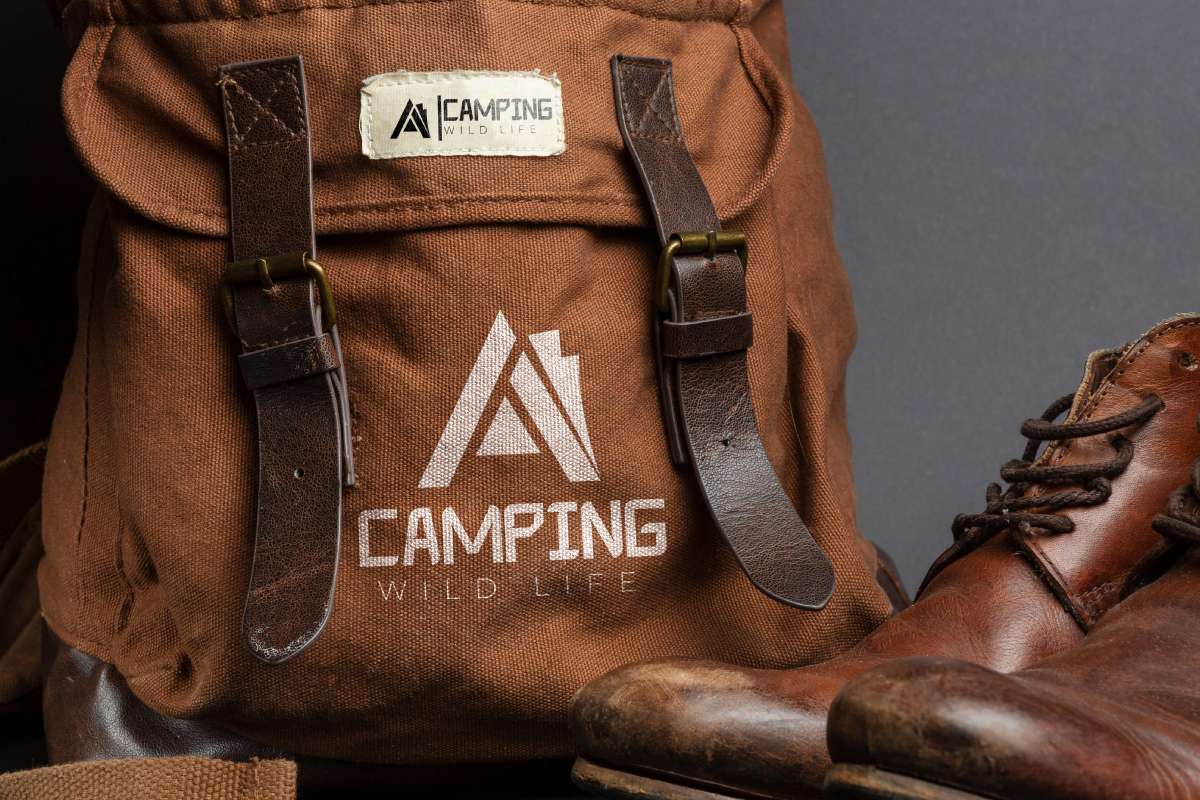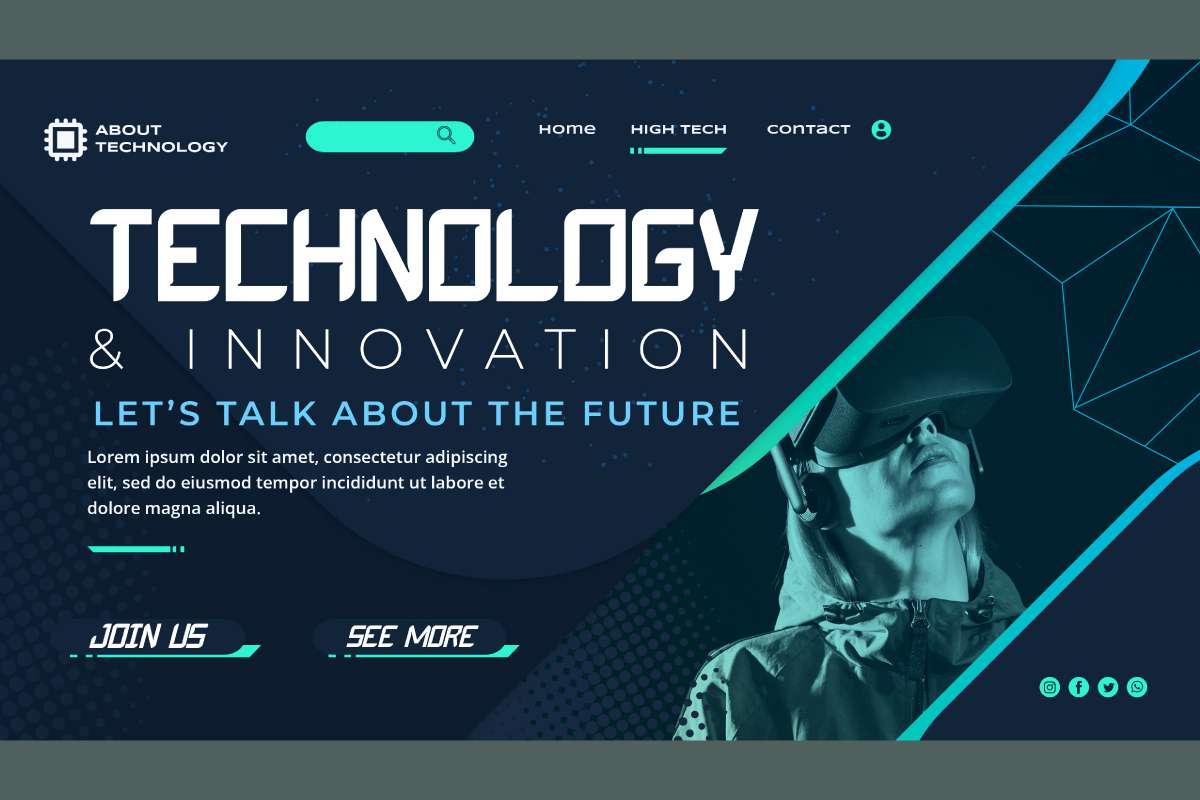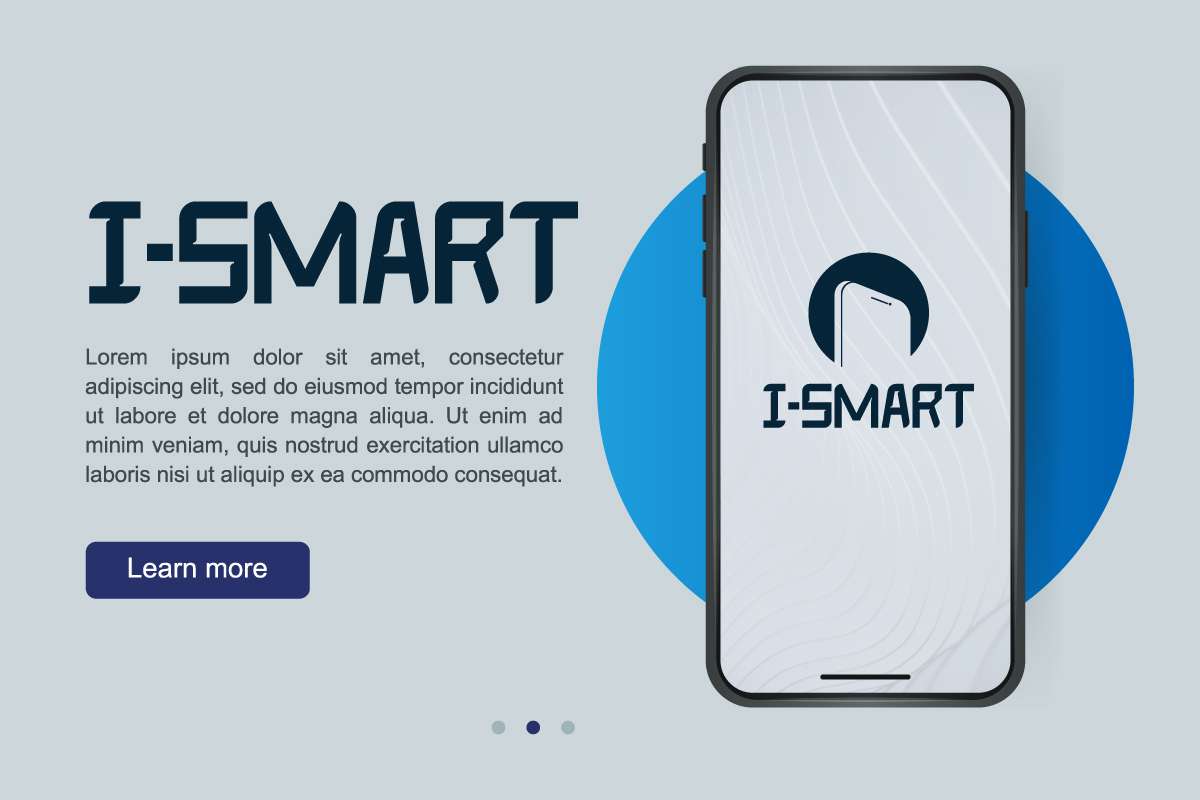
Hotfast Display Font
This font was handcrafted for any your special projects including : headlines, promotion, events, branding, advertising, magazine, signage, invitation, stationery, social media posts, label, or and any projects that need unique strong style. The theme/industries of this font is Movie, Game, Magazine, Music, Video, Sports, Racing etc
Hotfast Font comes with three styles : Regular, Italic and Bold. It has full set of ALL CAPS with different size between uppercase and lowercase, numerals, a large range of punctuation to make it blended.